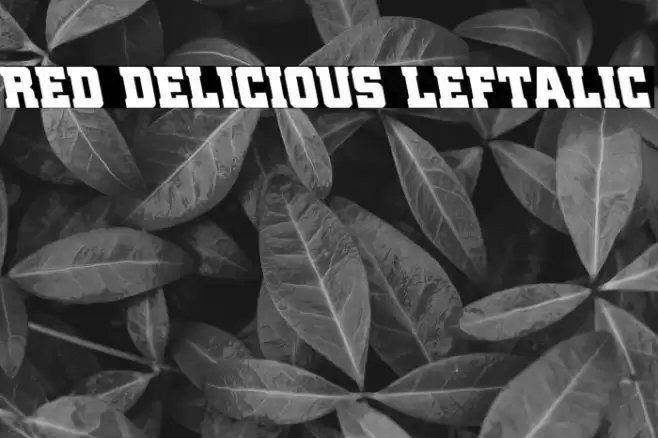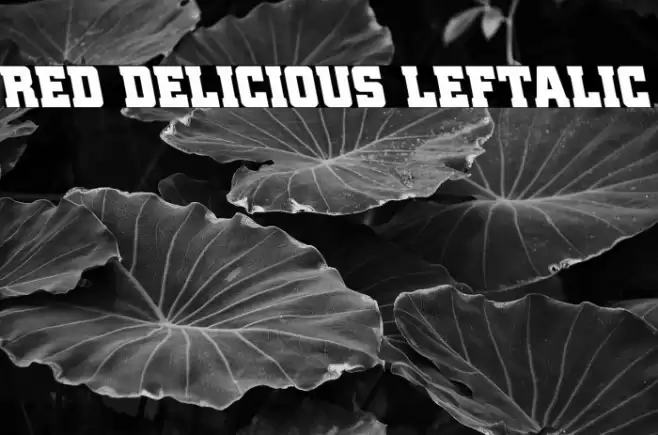
Red Delicious Leftalic Font
Red Delicious Leftalic Description
This bold and impactful font features a strong, angular design with a left-leaning italic style. The characters are thick and robust, giving a sense of strength and stability. The uppercase letters are particularly dominant, with sharp edges and a slightly condensed form. The numbers and special characters maintain the same boldness and angularity, ensuring consistency across all glyphs. The font's style is reminiscent of vintage sports or collegiate themes, making it ideal for projects that require a bold statement.
A bold, left-leaning italic font with a strong, angular design from Uncategorized fonts.
- Proposed Projects: Ideal for sports branding, poster headlines, and vintage-themed designs.
- Overall Style: Vintage